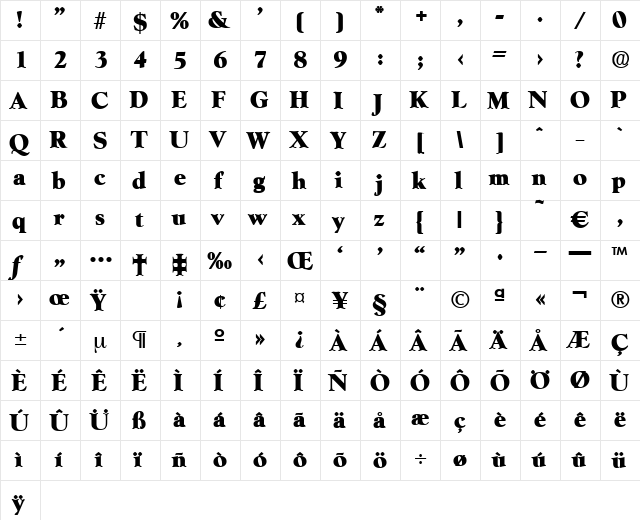
Goudx-ExtraBold Regular
Design Context for Goudx-ExtraBold Typeface
Goudx-ExtraBold takes a measured approach to typography — its balanced proportions and neutral character make it a reliable workhorse for both digital and print work. Its bold stroke weight gives it real presence on the page.